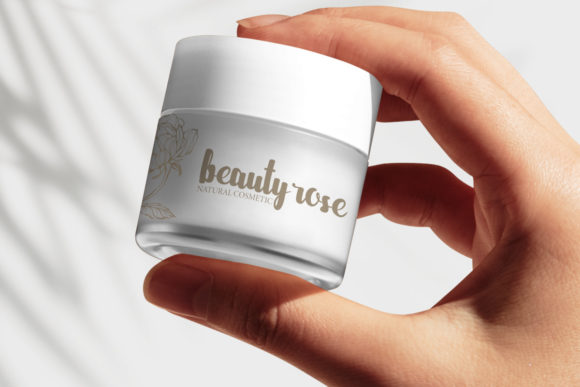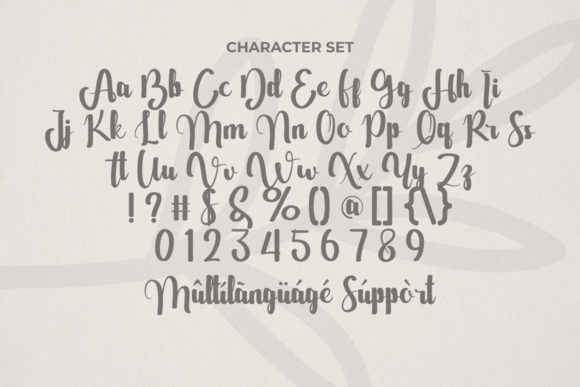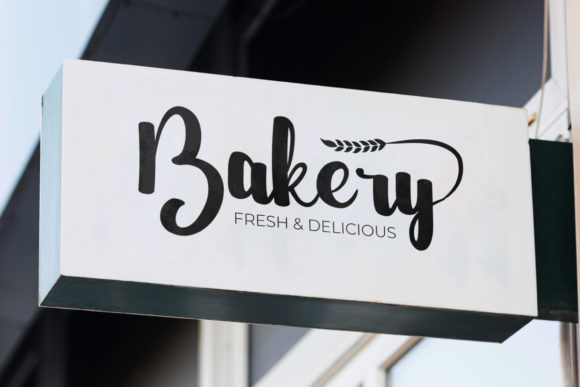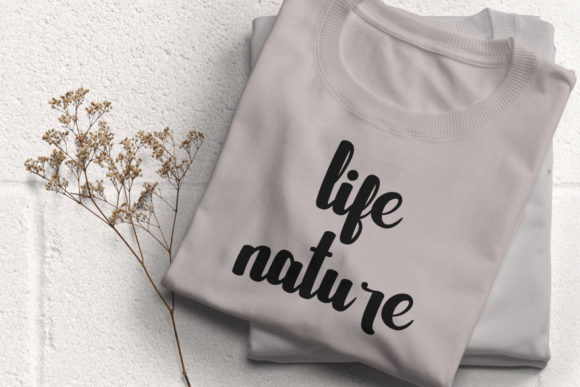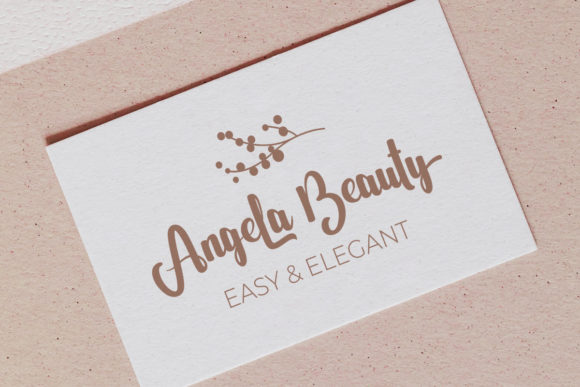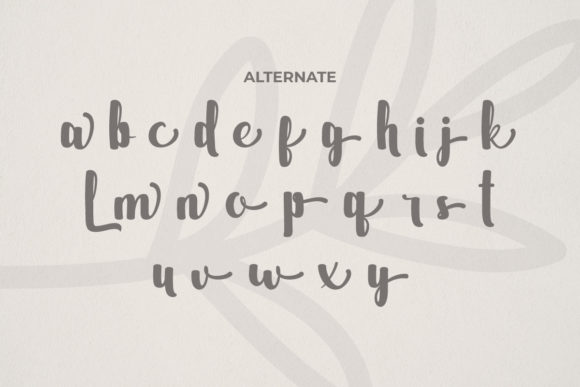
Introduction to Beauty Unleash Font Font
Fonts play a crucial role in design, and the Beauty Unleash Font font is a typeface that brings both character and versatility to any project. Whether you’re working on a branding project, a website, or a print design, the Beauty Unleash Font font offers a unique style that can elevate your work.
Beauty Unleash is an equally sophisticated and bold handwritten font thatβs great for delivering any message with confidence, authenticity and charm.
It will elevate a wide range of crafting ideas, from cards, to branding, labels and much more .
Key Features of Beauty Unleash Font Font
Why Choose Beauty Unleash Font Font?
The Beauty Unleash Font font is more than just a typeface β it’s a design tool that helps you communicate your message with style and clarity. Its unique character set and versatile design make it suitable for a wide range of applications, from elegant invitations to bold headlines.
With its carefully crafted letterforms and balanced proportions, the Beauty Unleash Font font ensures readability and visual appeal across all mediums.
What makes Beauty Unleash Font font special?
The Beauty Unleash Font font stands out with its unique design, exceptional readability, and versatility across various design applications.